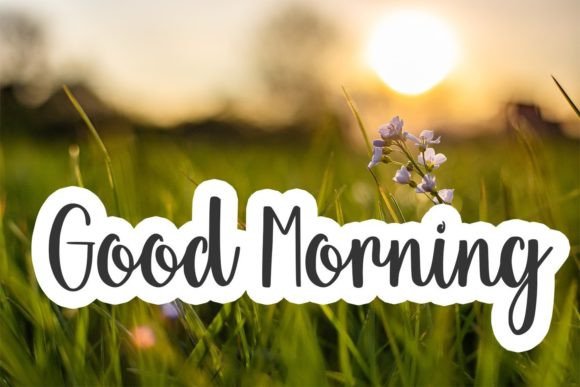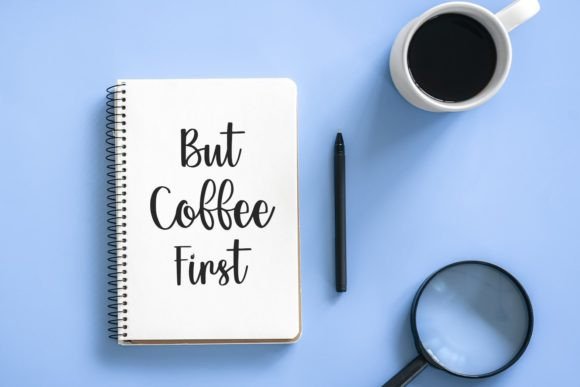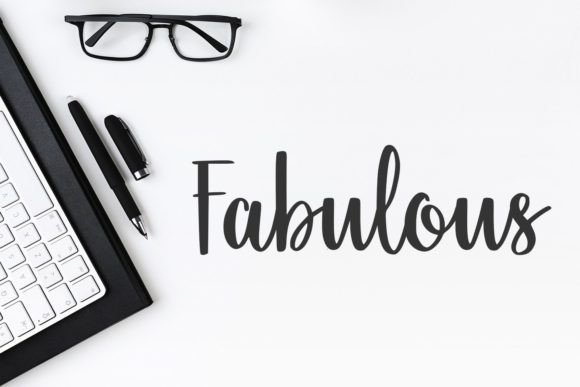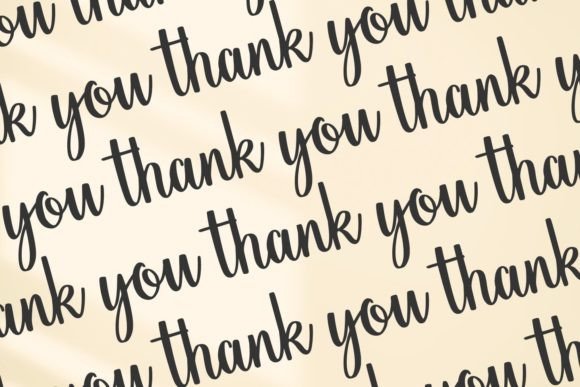
Wonderfuls Font
About Wonderfuls Font
Wonderfuls is more than just a font; it’s an embodiment of sweetness and elegance. This cursive handwritten signature script font exudes a gentle charm that can transform any design idea into a work of art. Its graceful and flowing characters add a touch of romance and joy to every project, making it a perfect choice for a wide range of applications.
One of the outstanding features of Wonderfuls is its versatility. This font shines brightly in branding and logo design, where it can instantly elevate the visual identity of a business or product. Its cursive, flowing strokes create a sense of elegance and sophistication, making it ideal for businesses that want to convey a luxurious and high-end image. When used in wedding-related designs, such as invitations, stationery, or wedding websites, Wonderfuls adds a romantic and intimate ambiance, capturing the essence of love and celebration.
In the realm of greeting cards, this font becomes a powerful tool for conveying heartfelt messages. Whether used for birthday cards, love notes, or special occasion greetings, Wonderfuls brings warmth and sincerity to the words, making the recipient feel truly cherished. Its delicate curves and graceful lines create a visual poetry that enhances the emotional impact of the messages.
For the fashion industry, Wonderfuls offers a touch of sophistication to lookbooks, promotional materials, and marketing campaigns. Its casual yet elegant demeanor makes it a perfect fit for fashion-related content, adding a sense of style and refinement to the overall presentation. In marketing promotions, this font can instantly capture attention, drawing viewers in with its charming and approachable aesthetic.
Wonderfuls is also an excellent choice for social media posts and digital marketing materials. Its cursive script brings a human touch to online interactions, making brand communication more personal and relatable. Whether used in Instagram posts, Facebook ads, or Pinterest graphics, this font creates a seamless blend of elegance and informality, appealing to a wide audience.
Overall, Wonderfuls is a font that effortlessly combines fanciness and casual elegance. Its ability to convey joy, romance, and sophistication makes it a valuable asset for various design projects. By adding Wonderfuls to your creative toolkit, you can infuse your projects with a sense of grace and charm, making them truly memorable and captivating.